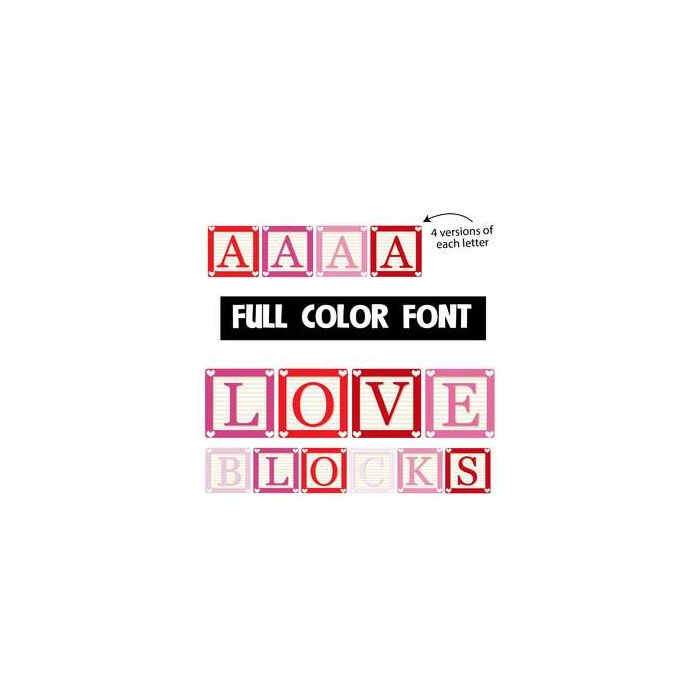
This full-color font features Valentine's colors on children's blocks with heart details. There is a second upper and lower alt case you can access through your system's character map. This font works best for titles, displays, posters and more. Please note color fonts will show as black in non compatible programs. This font type is compatible with Silhouette Studio.